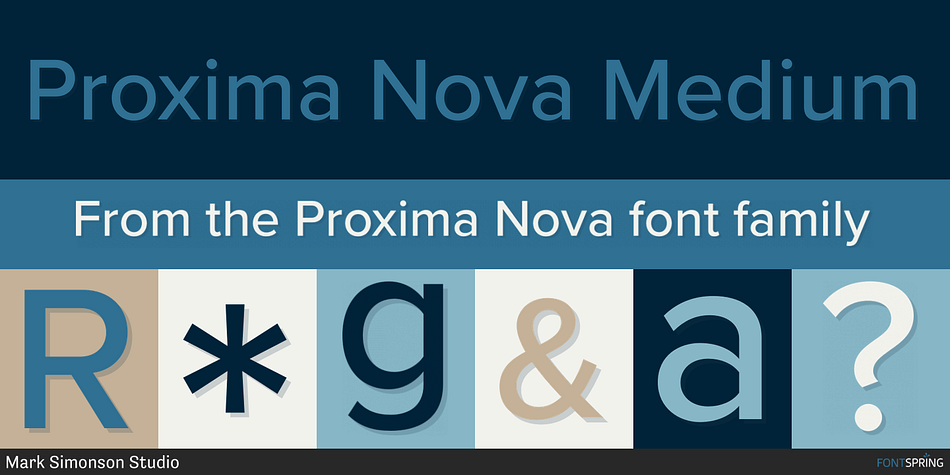
Proxima Nova Medium
Designed by Mark Simonson, Proxima Nova is a sans serif font family. This typeface has sixteen styles and was published by Mark Simonson Studio.
Proxima Nova straddles the gap between typefaces like Futura and Akzidenz Grotesk. The result is a hybrid that combines modern proportions with a geometric appearance. I originally released it in 1994 as Proxima Sans (now discontinued). I expanded the original six fonts (three weights with italics) into a full-featured and versatile family of 48 fonts (eight weights in three widths with italics).
In the last few years, Proxima Nova has become one of the most popular web fonts, in use on thousands of websites around the world.